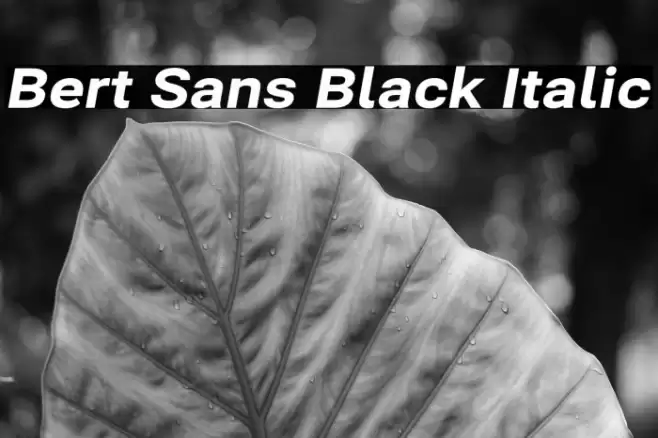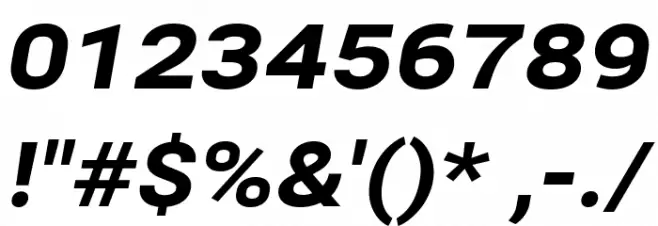
Bert Sans Black Italic Font
Bert Sans Black Italic Description
This font features a bold and italicized style, characterized by its strong presence and dynamic slant. The letters are sans-serif, offering a clean and modern look with smooth curves and sharp edges. The uppercase and lowercase letters maintain a consistent weight, providing a uniform appearance across the alphabet. Numbers and special characters are equally bold, ensuring readability and impact. The italic angle adds a sense of motion and elegance, making it suitable for attention-grabbing designs. The overall design is sleek and contemporary, ideal for modern applications.
A bold, italicized sans-serif font with a modern and dynamic style from Sans Serif fonts.
- Proposed Projects: Ideal for branding, advertising, headlines, and digital media where a strong and modern impression is needed.
- Use Case: Headlines, Logos, Branding